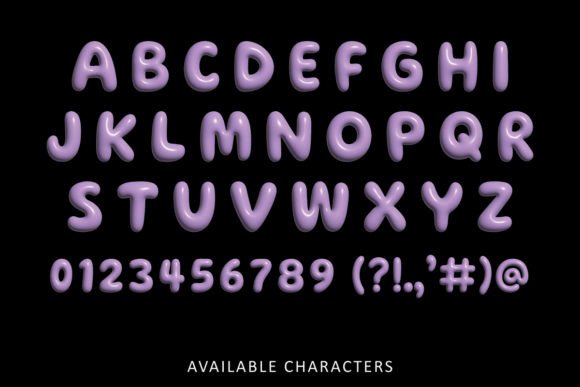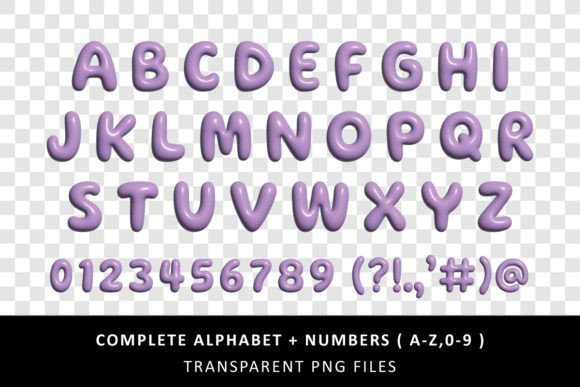
Super Cute Font
Super Cute is a vibrant and cheerful color font that exudes playfulness and charm. With its lively hues and whimsical characters, it adds a delightful pop of color to any design. Perfect for children’s books, posters, and greeting cards, Super Cute brings joy and vibrancy to your projects effortlessly.